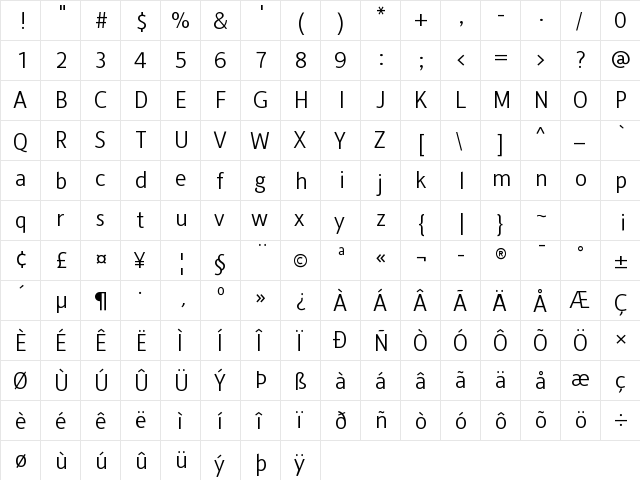
Alber Light
| Foundry | C.Dickinson |
| Designer | C.Dickinson |
Design Context for Alber Typeface
Alber is a composed and adaptable typeface that performs quietly and consistently across a wide range of design contexts. Its slender proportions lend an understated elegance to any composition.